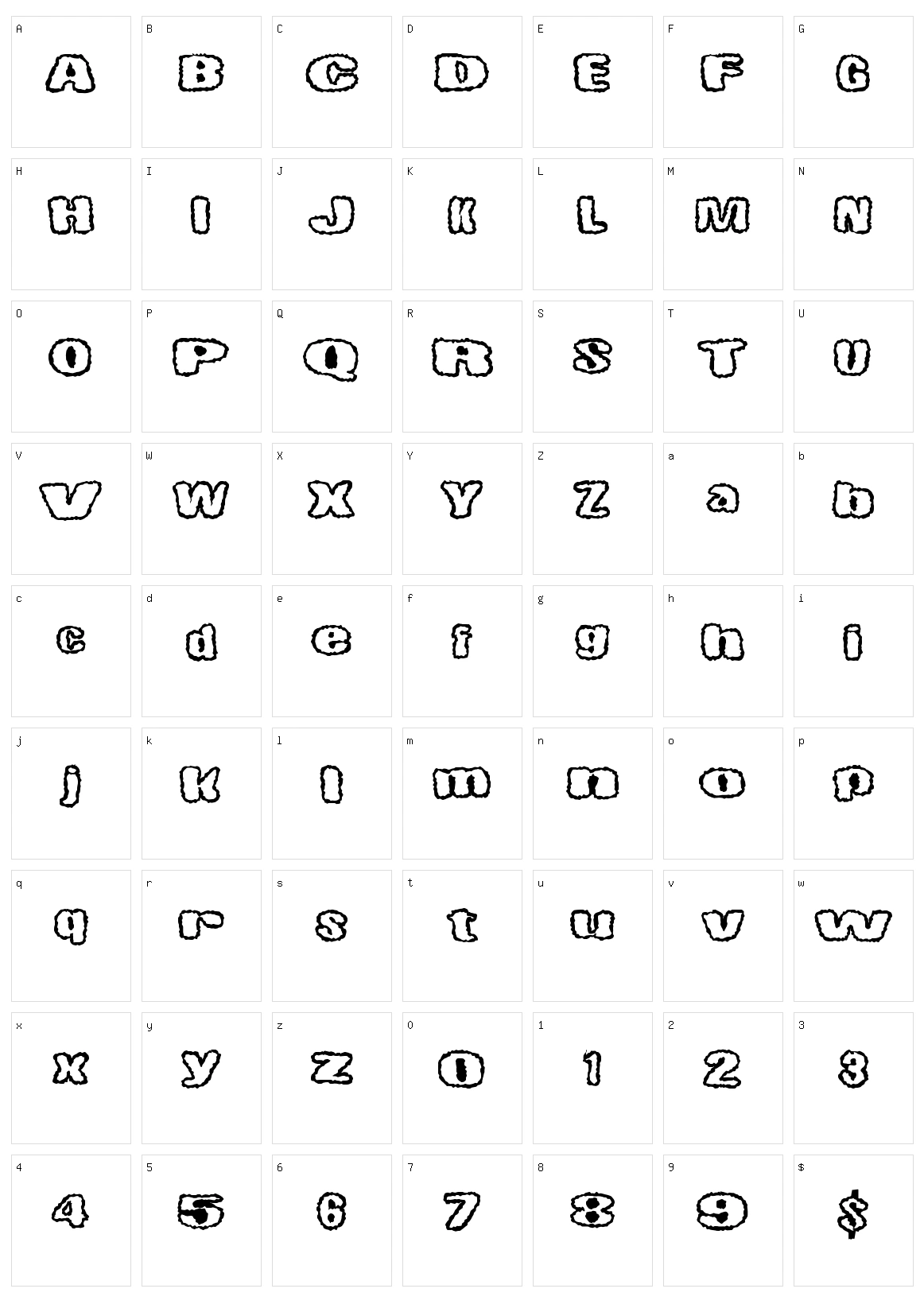
The free font Little Spooky is carefully designed by Xerographer Fonts, showcasing a thoughtful balance of creativity and usability and falls under the Horror font style. When you download the ZIP file, it contains only 45.89 KB of font files, making it lightweight and quick to download. Please review the license details below to understand permitted usage and distribution rights. If license information is not available, we recommend using this font for personal projects only or contacting the author directly for commercial usage permissions.